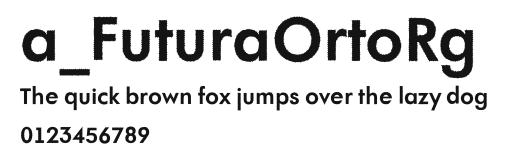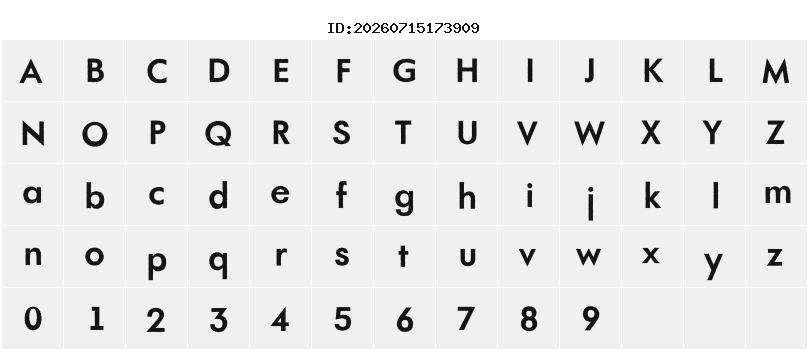
a_FuturaOrtoRg Preview
• Font Name: a_FuturaOrtoRg
• Font ID: a_FuturaOrtoRg Bold
• Full Font Name: a_FuturaOrtoRg Bold
• PostScript Name: a_FuturaOrtoRg-Bold
About a_FuturaOrtoRg.ttf
a_FuturaOrtoRg.ttf is a modern, elegant sans-serif font designed for ultimate readability and visual harmony. Perfect for branding, headlines, web design, and print materials.